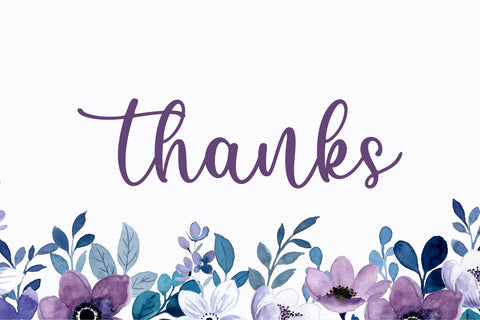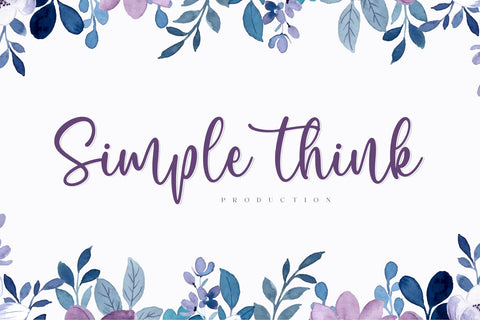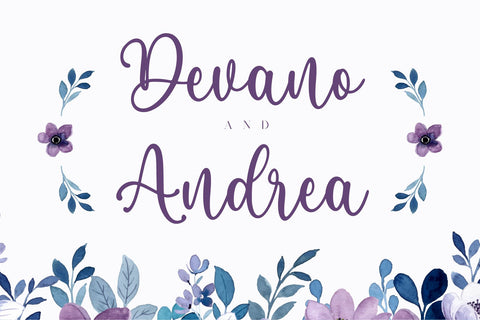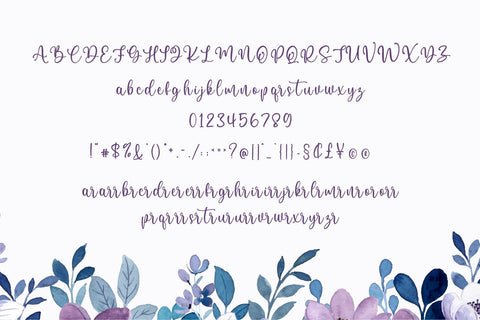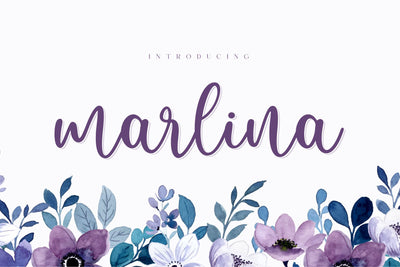
Marlina Script Font
Marlina is lovely handwritten font, featuring the perfect amount of trendiness. This font reads as strong, confident, and dynamic and can add tons of nostalgic character to your designs.